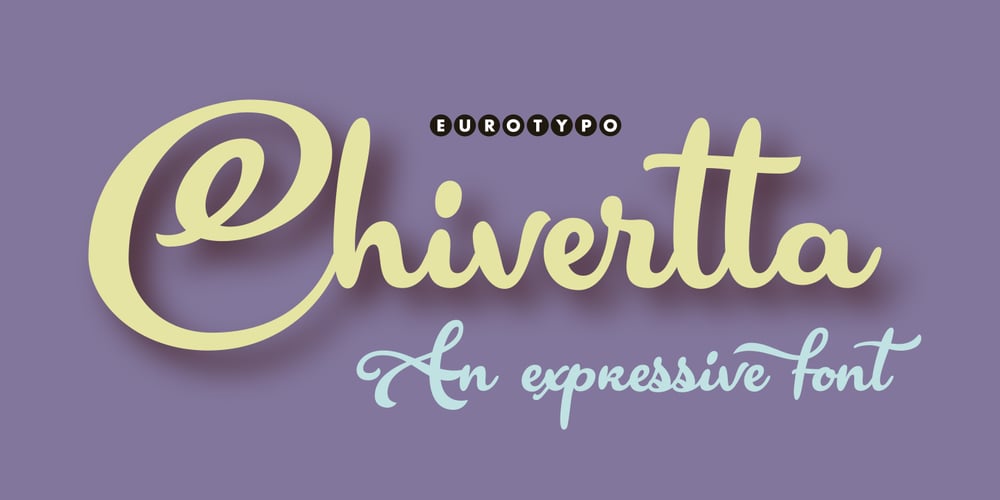
Chivertta Font Family was designed by Carine de Wandeleer and published by Eurotypo. Chivertta contains 1 styles and family package options. Chivertta combines elements of casual and modern aesthetics. The font is inspired by a logo discovered on the streets of Buenos Aires.One of Chivertta’s distinctive features lies in its careful design and its wide repertoire of ligatures and stylistic alternatives. This extensive collection offers a wealth of options, allowing designers to enhance their creative output, imbuing their designs with a greater sense of authenticity and realism.In essence, Chivertta transcends convention, offering a powerful tool for designers and resulting in designs that come out with authenticity and contemporary style.